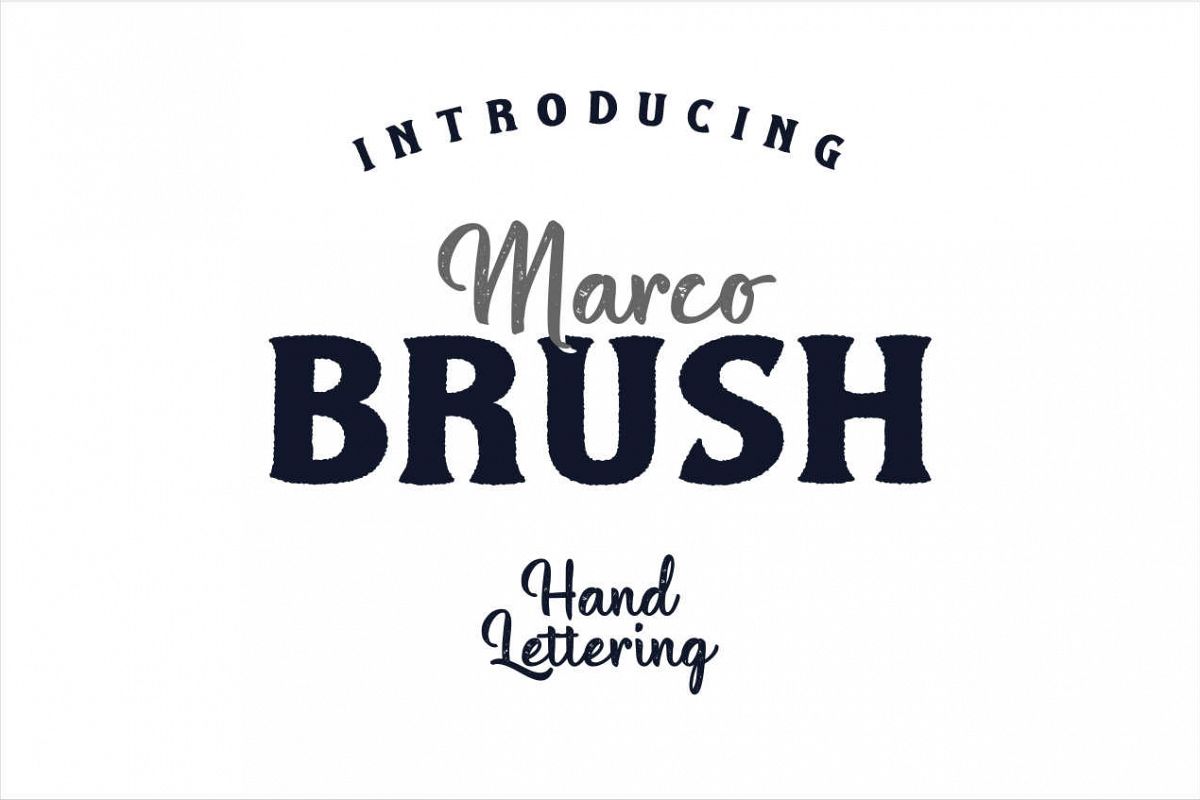
Marco Dual Font
Marco Brush
MARCO
Presents our product Marco Brush and MARCO! both of these font consist with 2 different style. These two lovely fonts would be perfect to combine in your design. with vintage style. The fonts are great for product logo,wedding card logo, clothing brand logo,Vintage design and much more.TRY AND DOWNLOAD